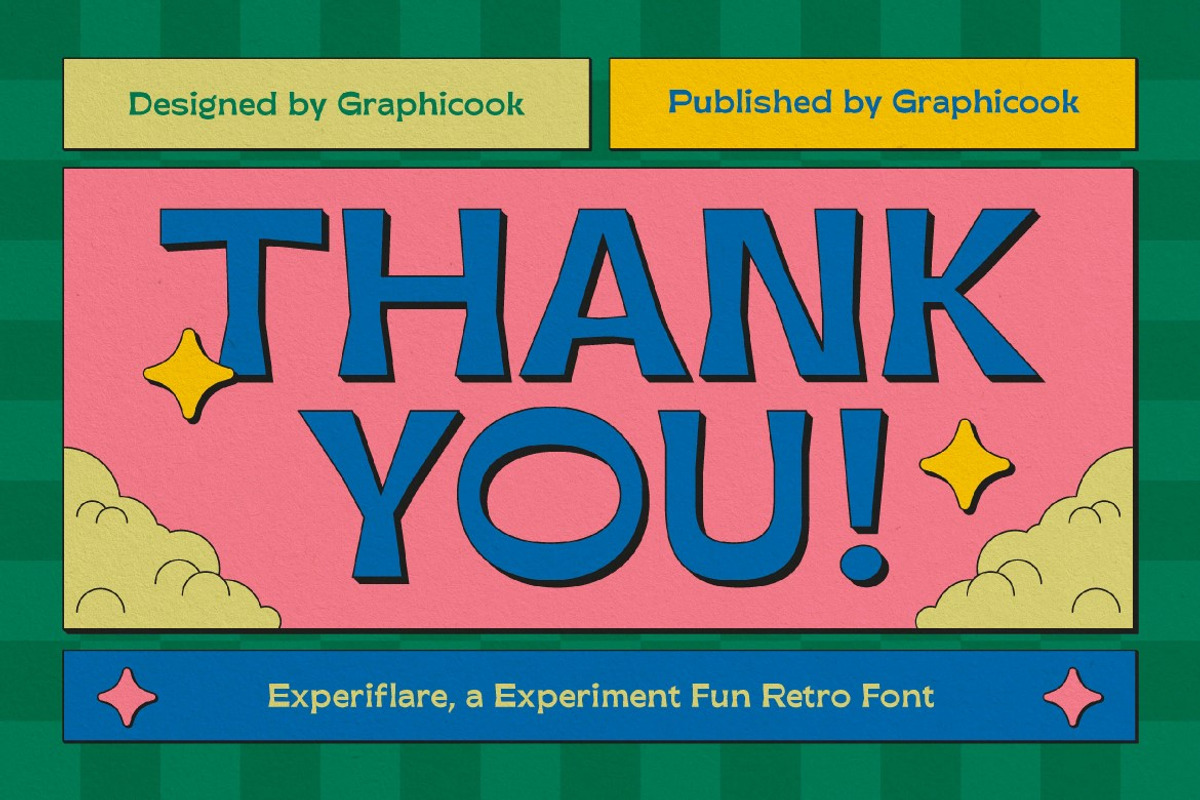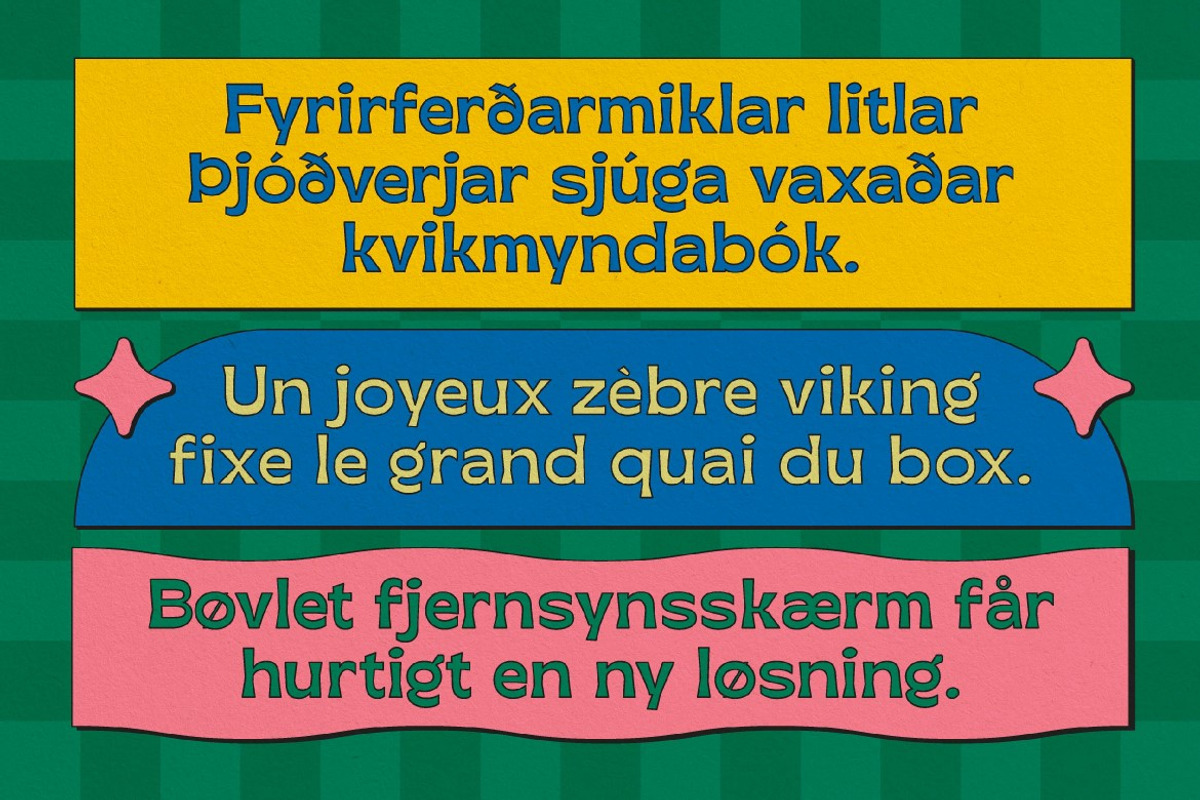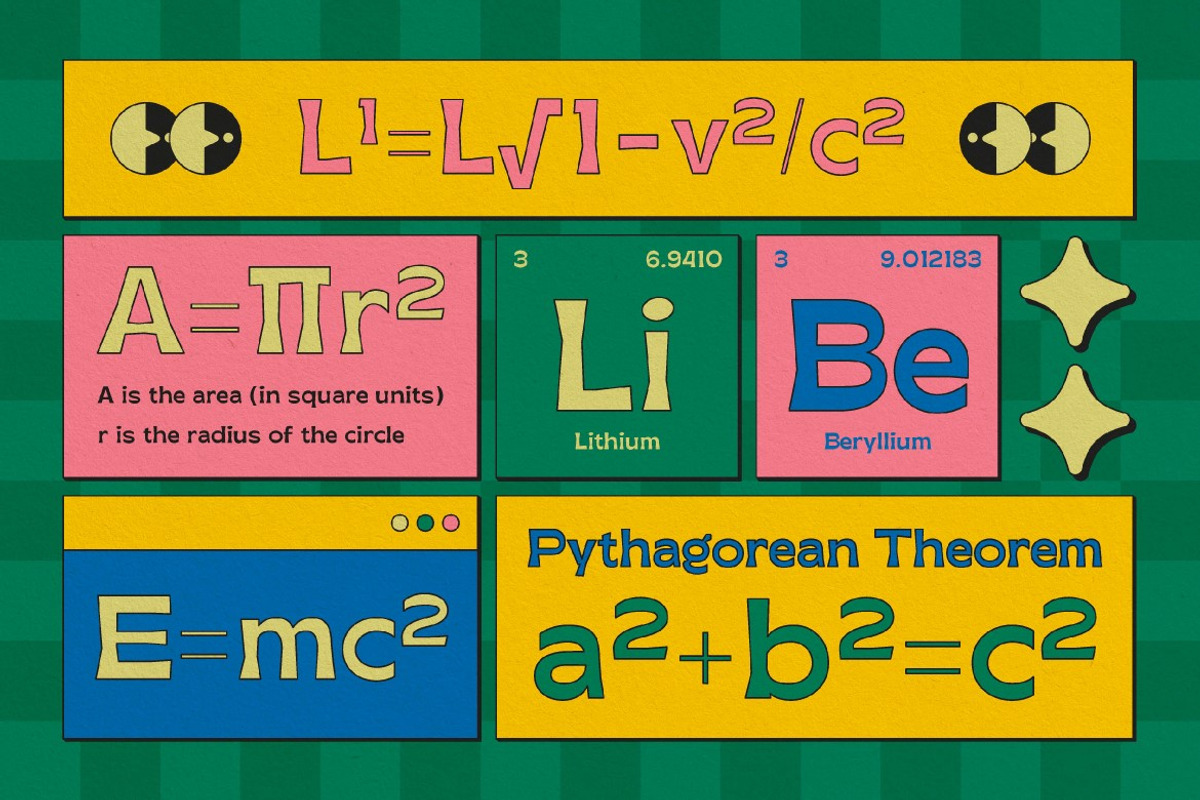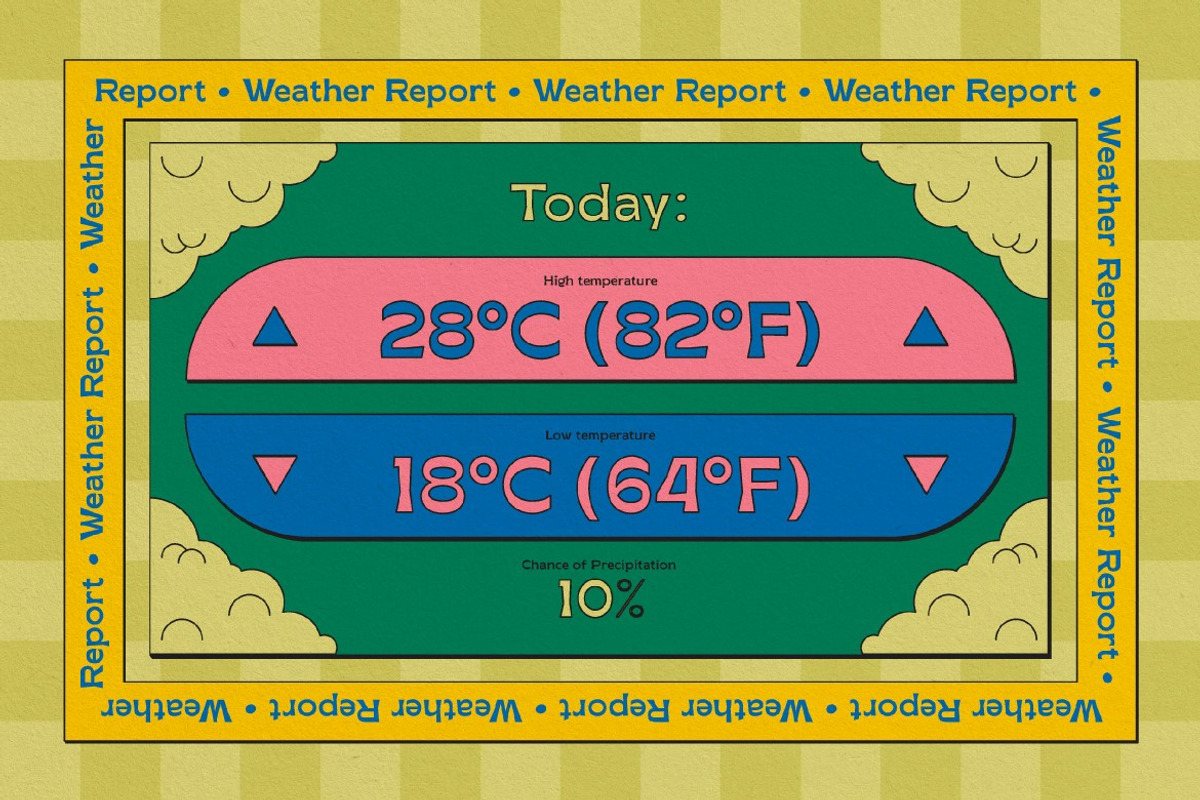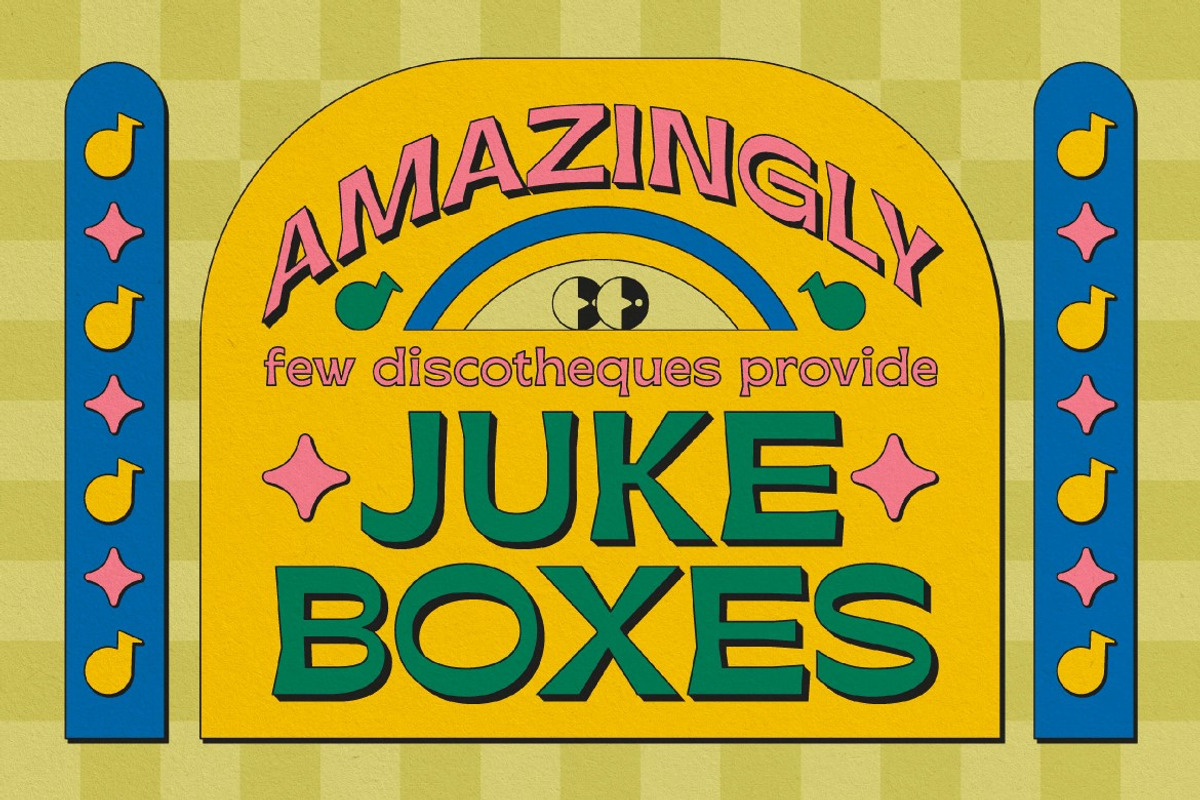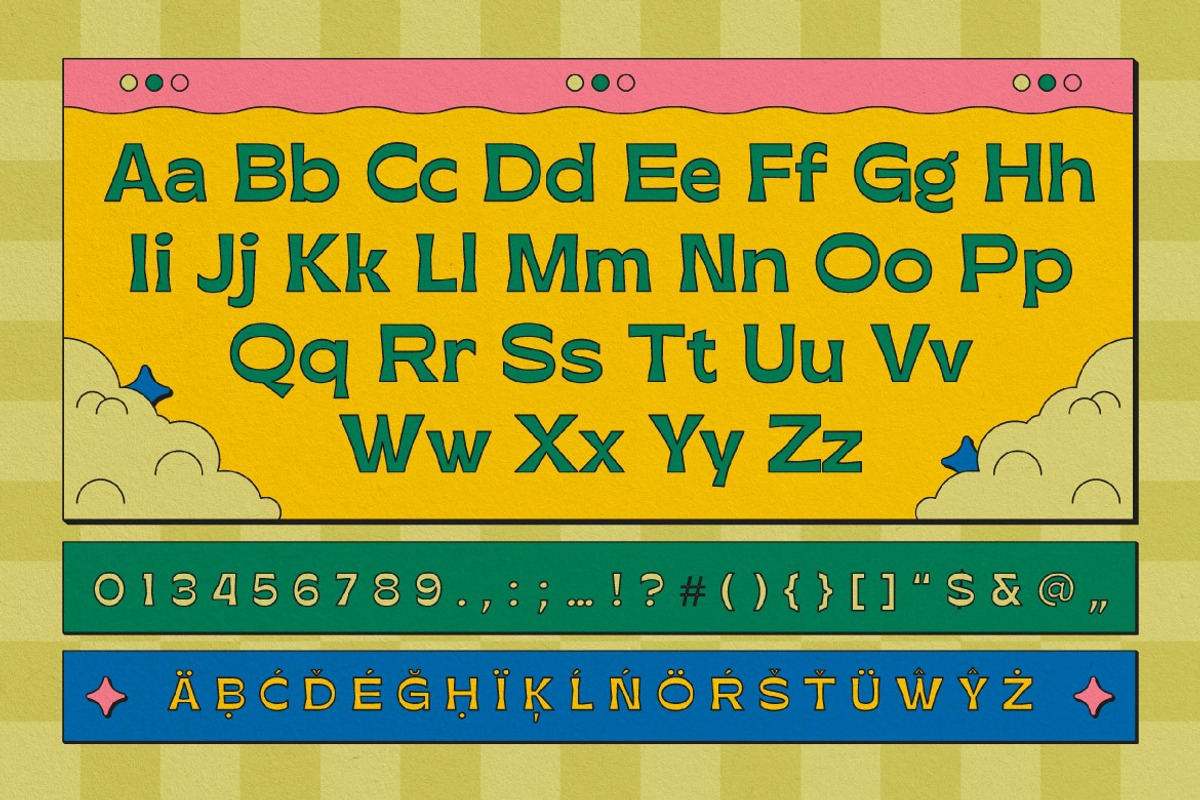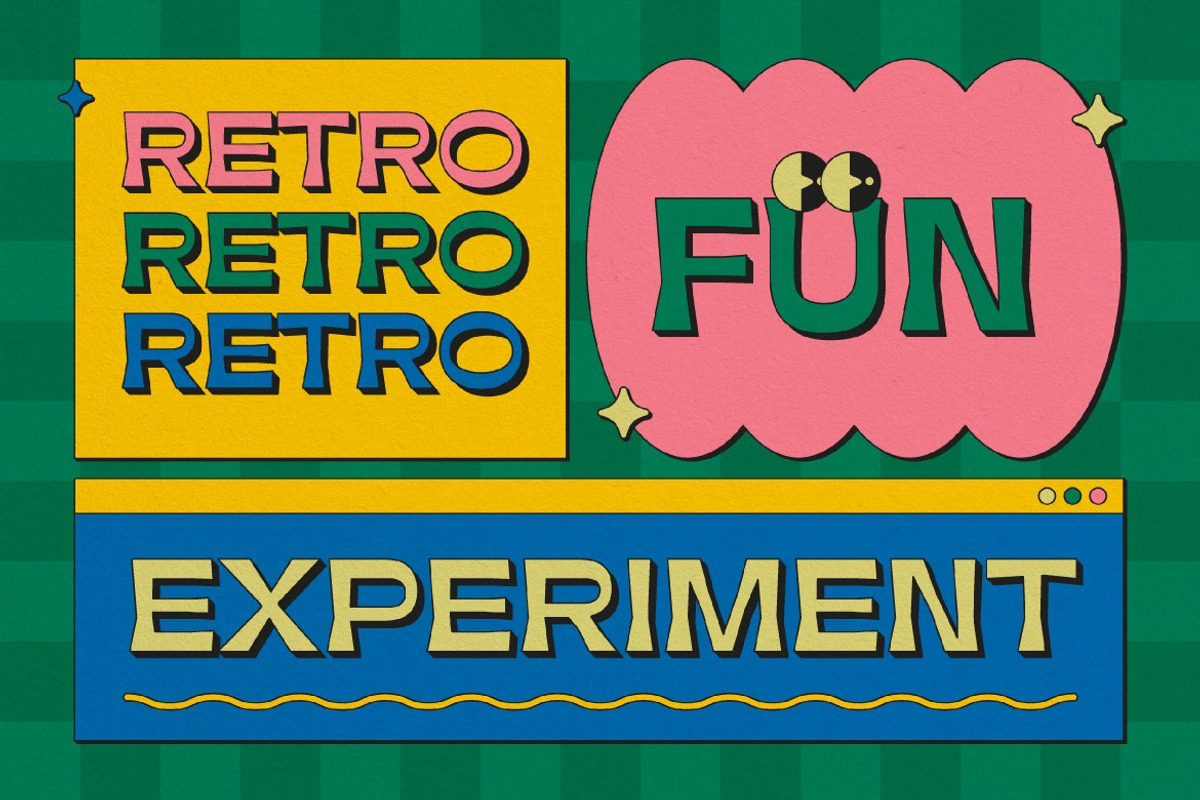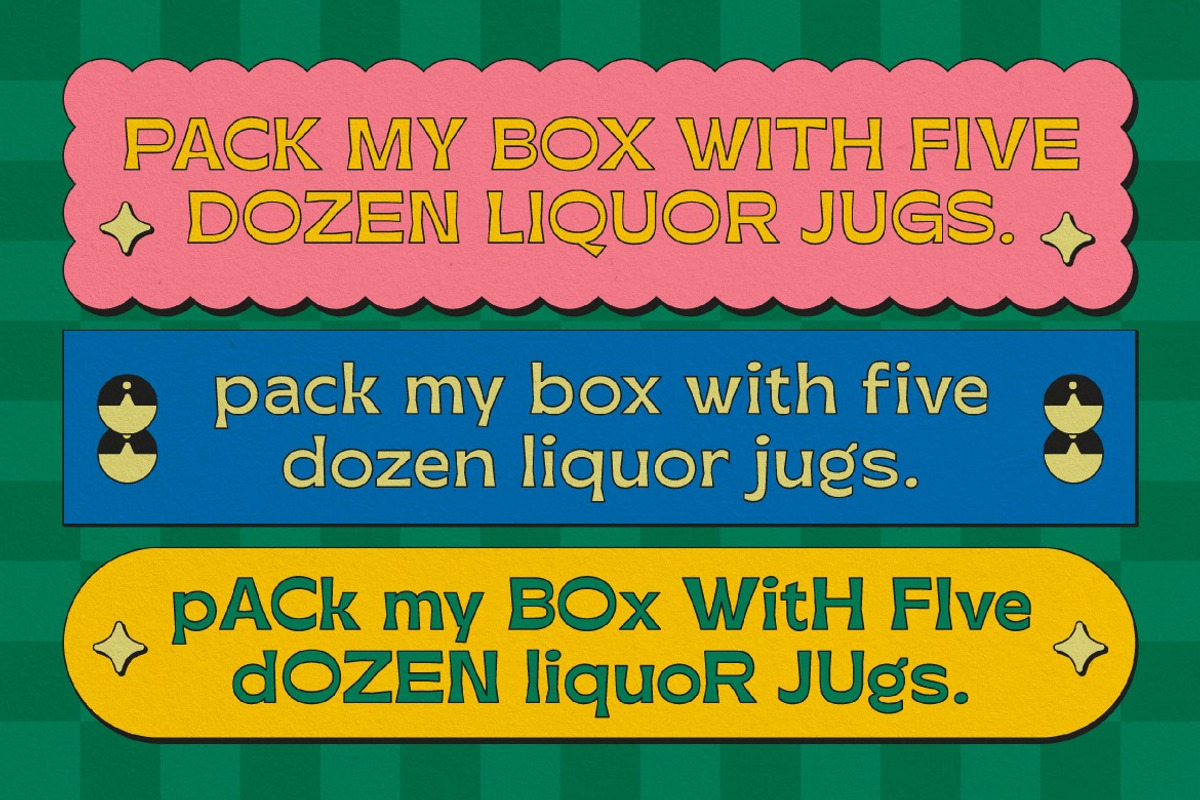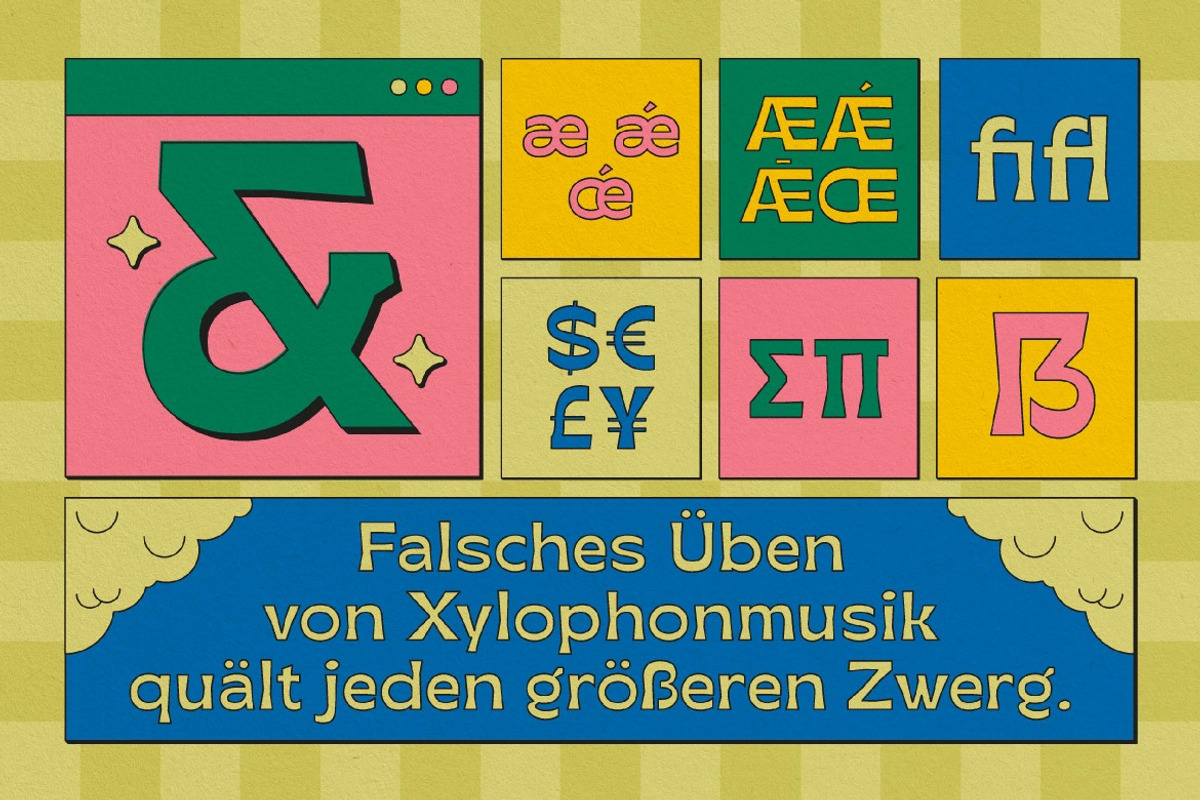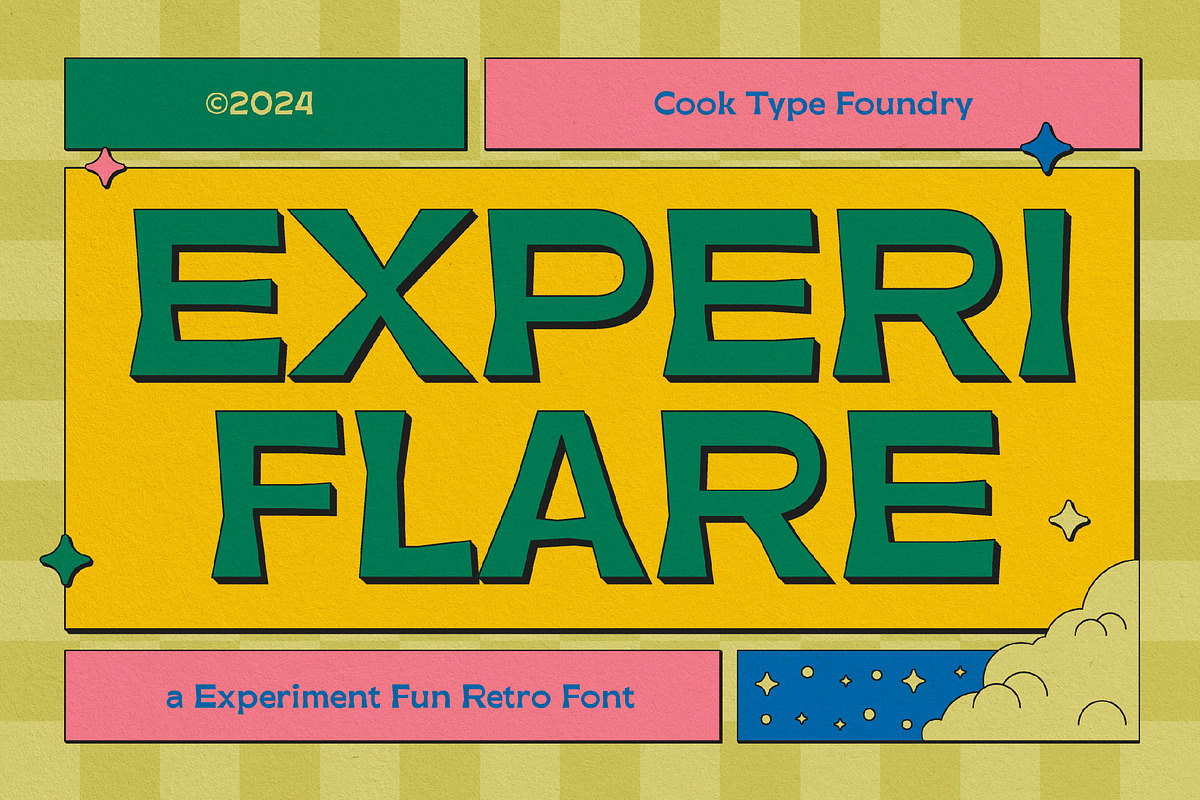
Experiflare
Experiflare is a blend of experimentation with a touch of flare. Perfect for event branding, cereal packaging, magazines, and more
Experiflare is perfect for headlines, logotypes, magazines, packaging, quotes, movies, games, cover albums, book covers, and flyers, it's a perfect solution for creating eye-catching designs that stand out in any context.